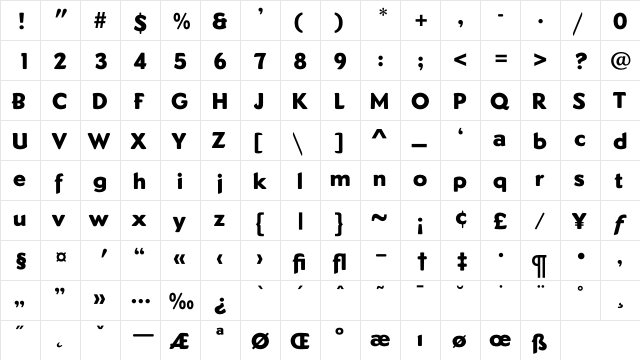
DundeeExBold Regular
Design Context for DundeeExBold Typeface
DundeeExBold offers clean, dependable letterforms without strong stylistic allegiance, making it a practical choice for designers who need flexibility. The heavy weight commands attention and anchors typographic hierarchies.
Pro Tip: Pair DundeeExBold with a font of contrasting weight or personality to build a more expressive typographic hierarchy.